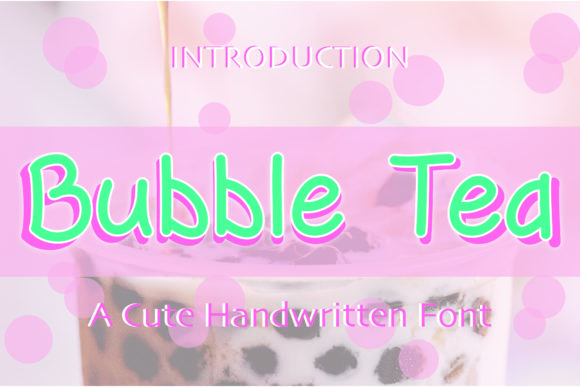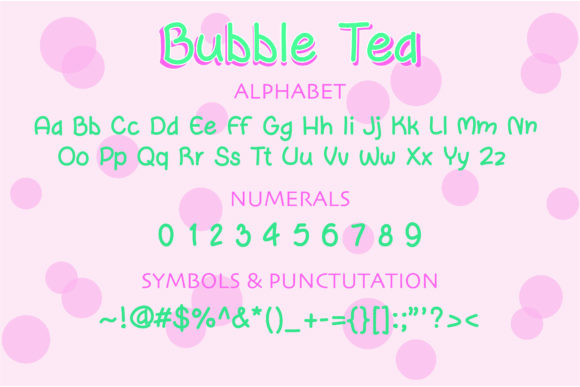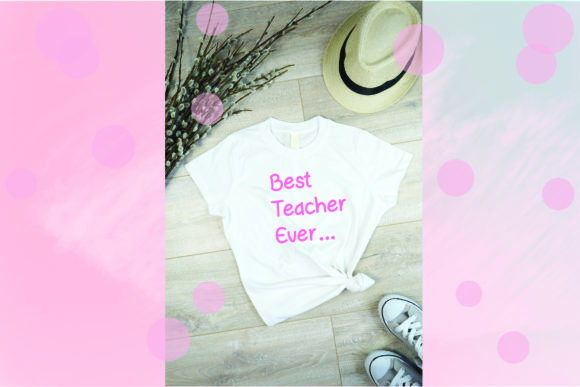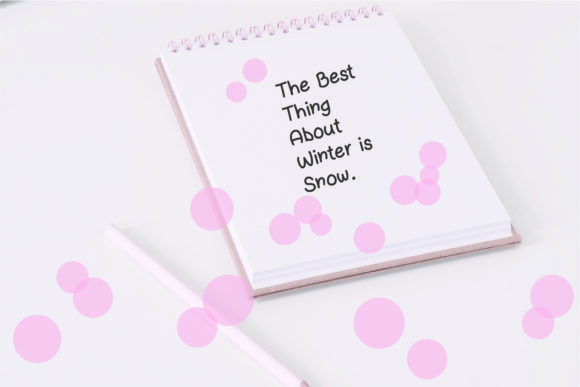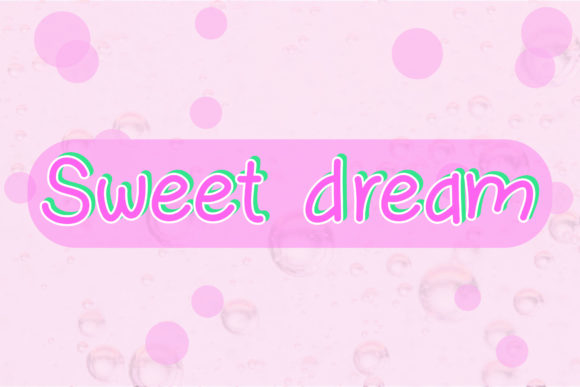
Bubble Tea Font
About Bubble Tea Font
Bubble Tea is a cute and playful handwritten font. Its natural and unique style makes it fitting to a large pool of designs. Have fun with this beautiful font and explore its endless variations.